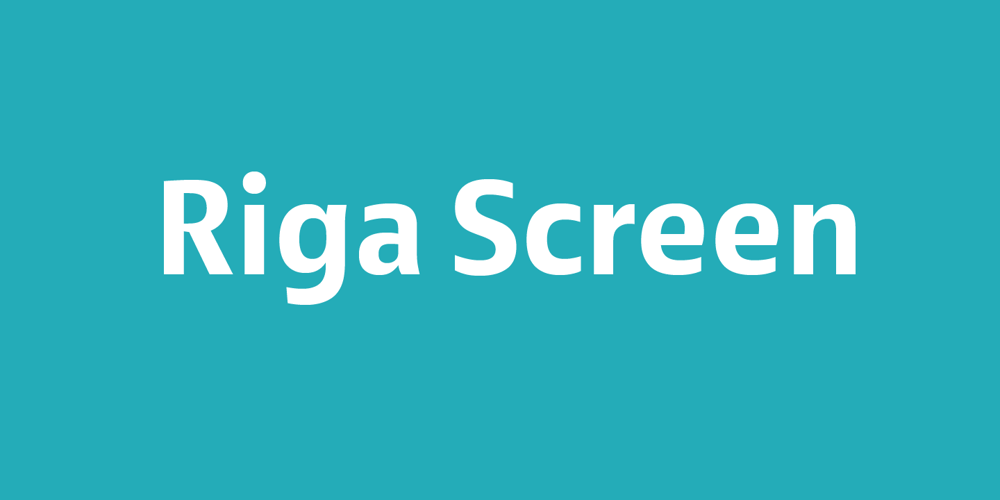
Riga Screen
Riga Screen font
Riga Screen Font Family was designed by Ludwig Übele and published by Ludwig Type. Riga Screen contains 4 styles and family package options. Riga Screen is designed to work particularly well on screen. Especially responsive websites or office applications will appreciate its economic proportions. Riga has been specially engineered and optimized for exceptional readability in small sizes on all current computer monitors, including tablets and smartphones. This small family of four weights is the perfect companion for the Riga type family.